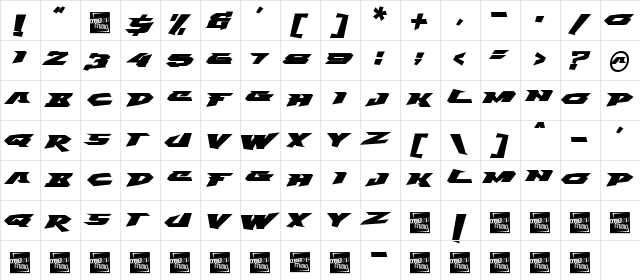
Fear No More Regular
| Designer | Anang Fibriyanto | Cornertype!" Studio |
Design Context for Fear No More Typeface
Fear No More is a composed and adaptable typeface that performs quietly and consistently across a wide range of design contexts.